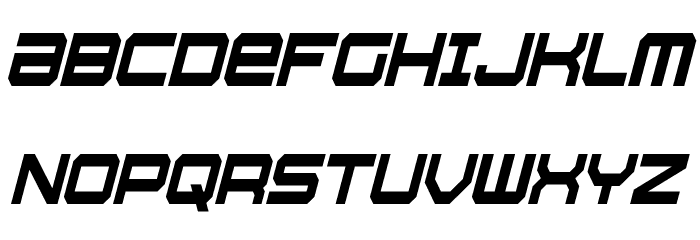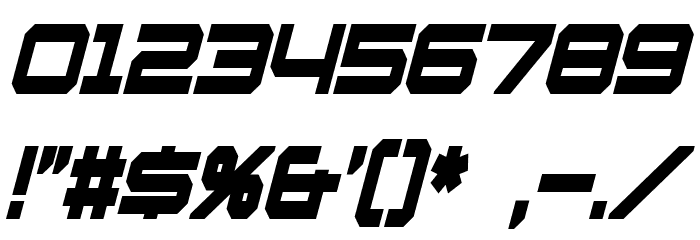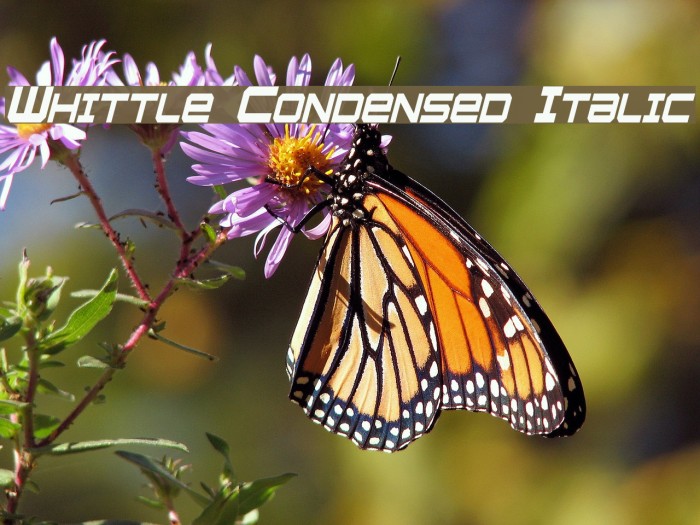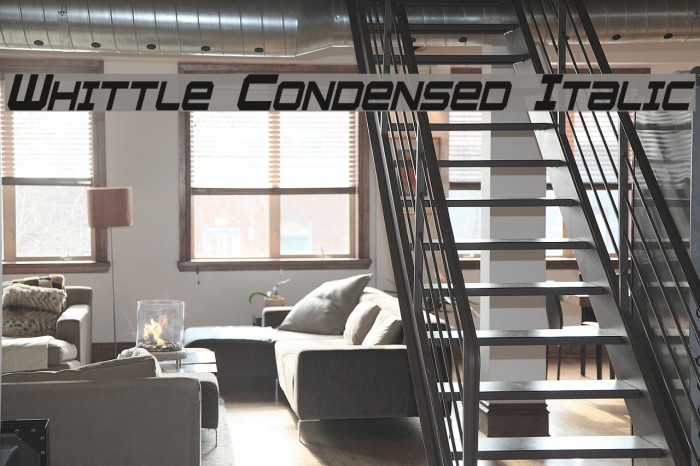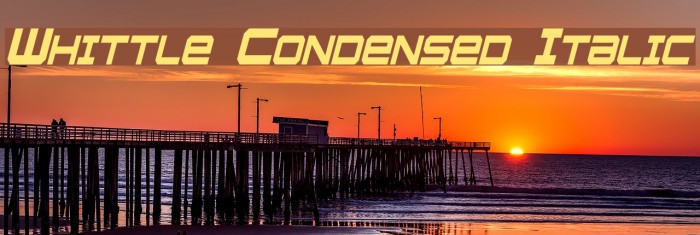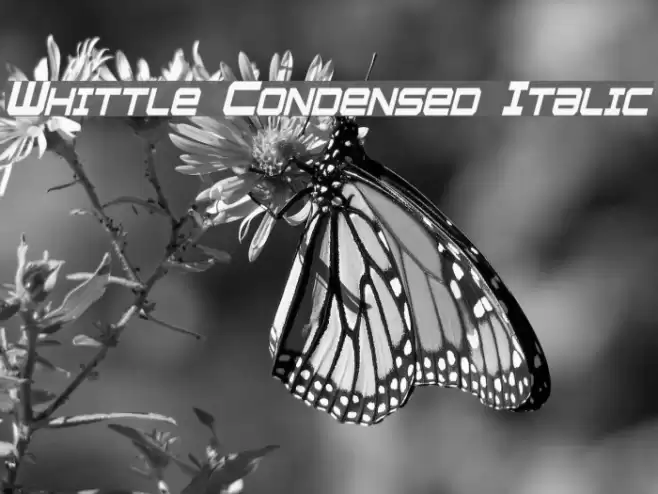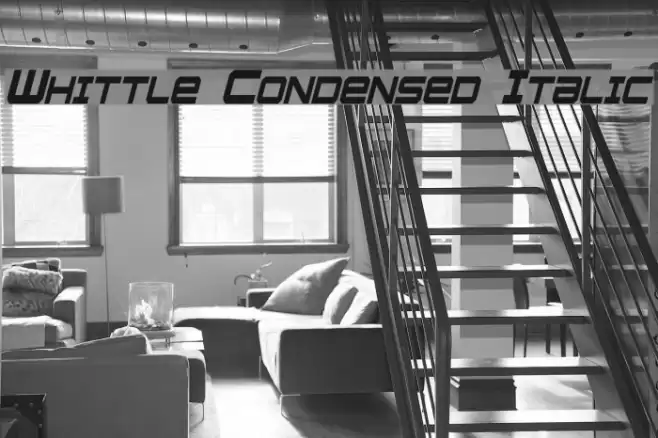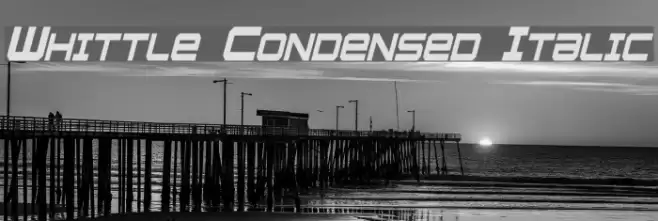
Whittle Condensed Italic
This font exhibits a bold and dynamic style with an italicized slant, giving it a sense of motion and energy. The characters are condensed, which makes them appear sleek and modern. The angular cuts and sharp edges provide a futuristic and tech-inspired look. The uniform stroke width across all characters ensures a consistent and cohesive appearance. The font's design is both distinctive and versatile, suitable for various creative applications. Its boldness and condensed nature make it ideal for impactful headlines and attention-grabbing text.
A bold, condensed, and italicized font with a modern, tech-inspired style.
- Proposed Projects: Ideal for technology branding, sports team logos, dynamic posters, and modern website headers.
- Width: Condensed
- Use Case: Headlines, Logos, Posters